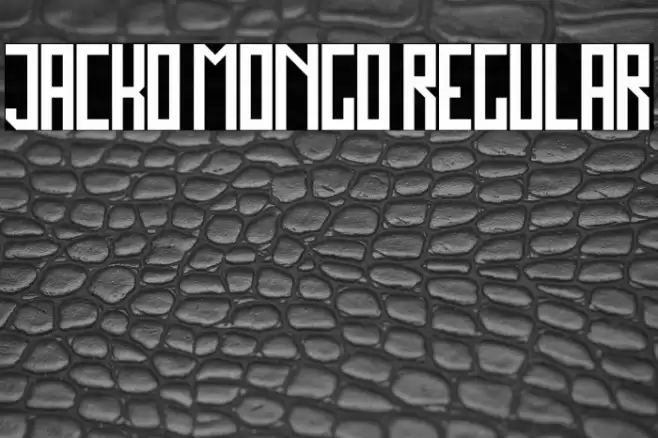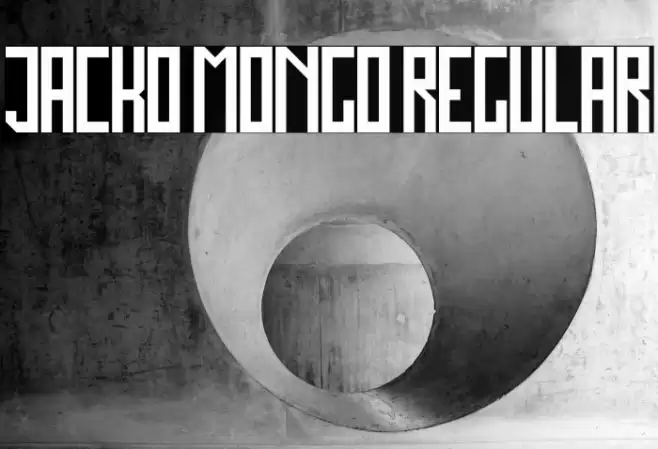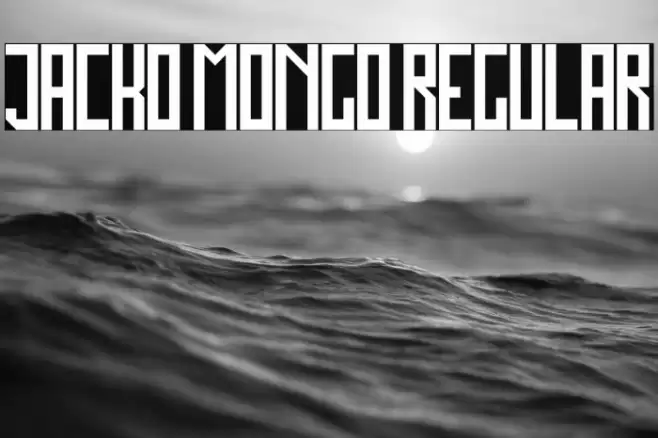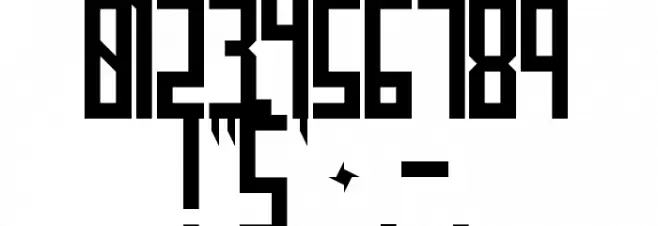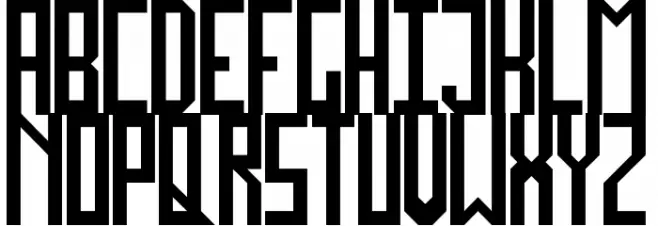
Jacko Mongo Regular Font
Jacko Mongo Regular Description
This font exhibits a bold and geometric style, characterized by its sharp angles and uniform line thickness. The characters are constructed with a modern, block-like appearance, giving them a strong and impactful presence. The uppercase and lowercase letters maintain a consistent height, contributing to a cohesive look. The numbers and special characters are designed with the same angular precision, ensuring a seamless integration across different text elements. This font's distinct style makes it suitable for projects that require a contemporary and assertive visual identity.
A bold, geometric font with sharp angles and uniform line thickness from Uncategorized fonts.